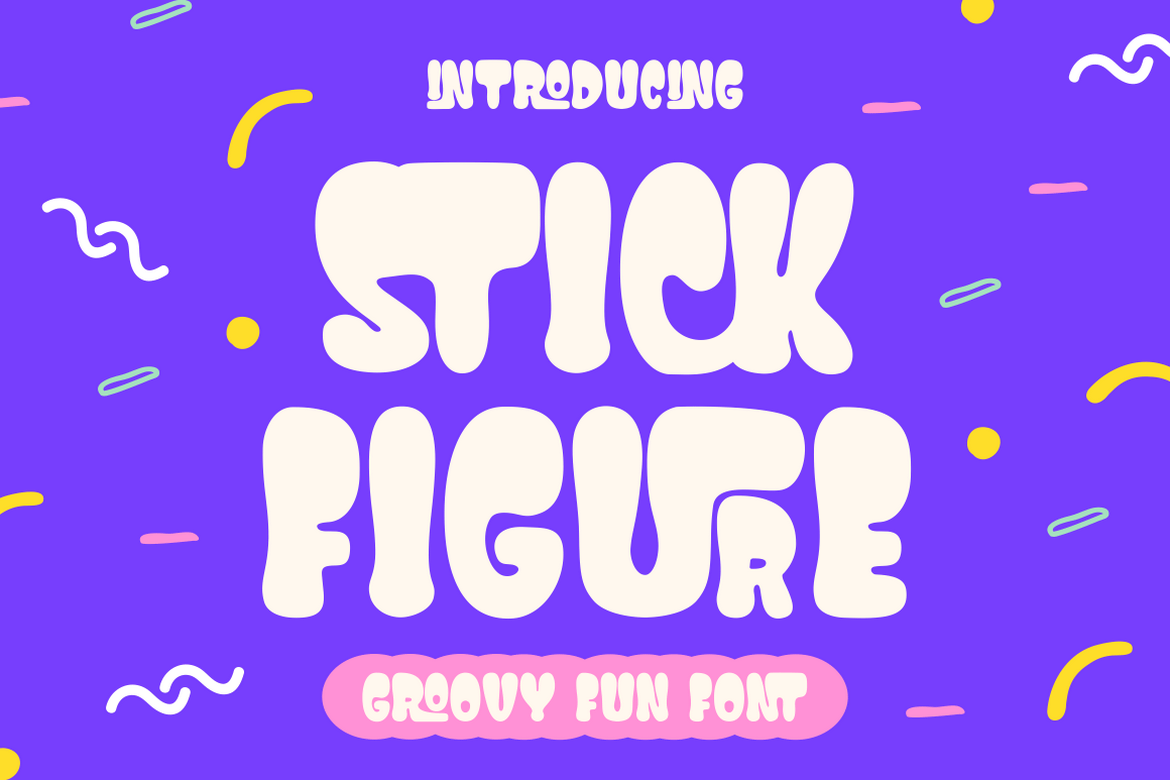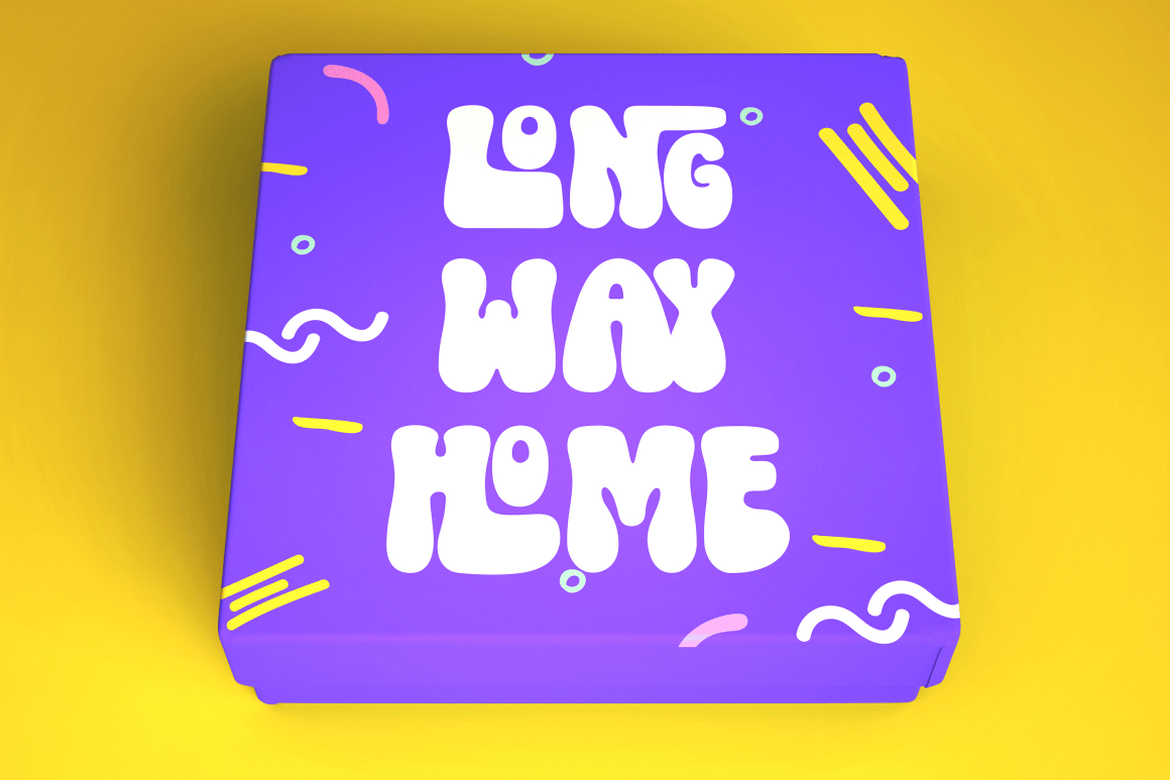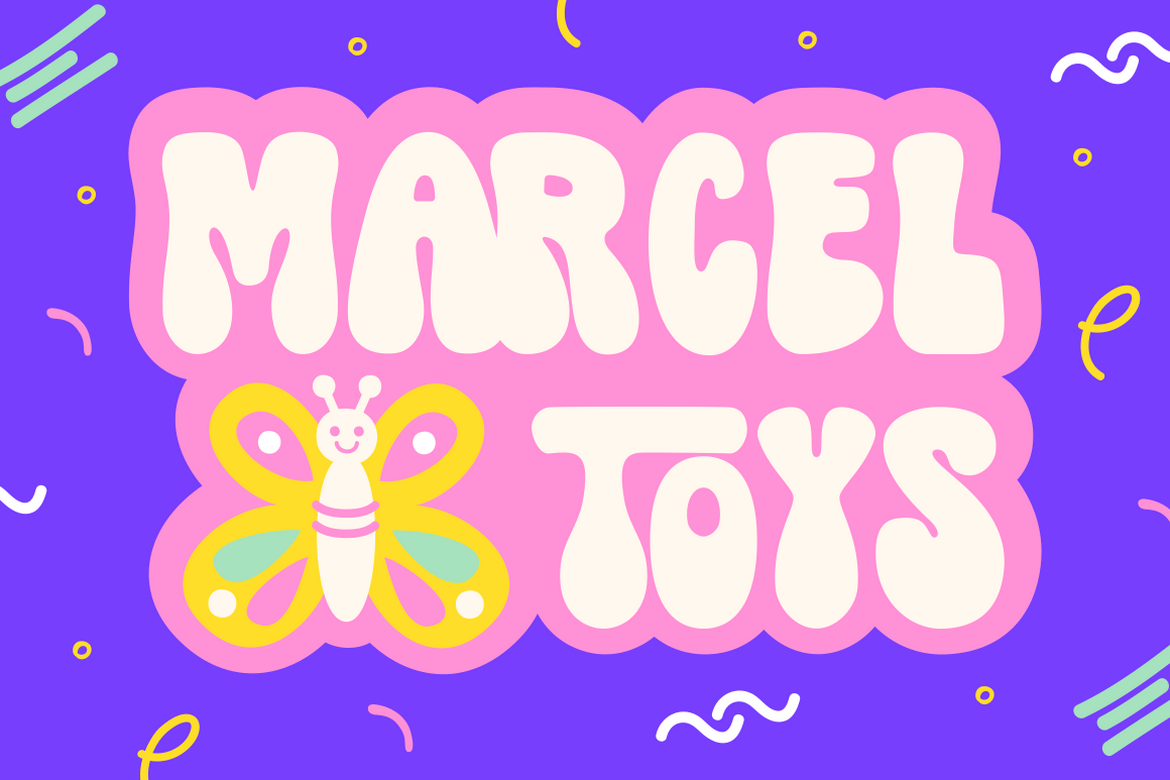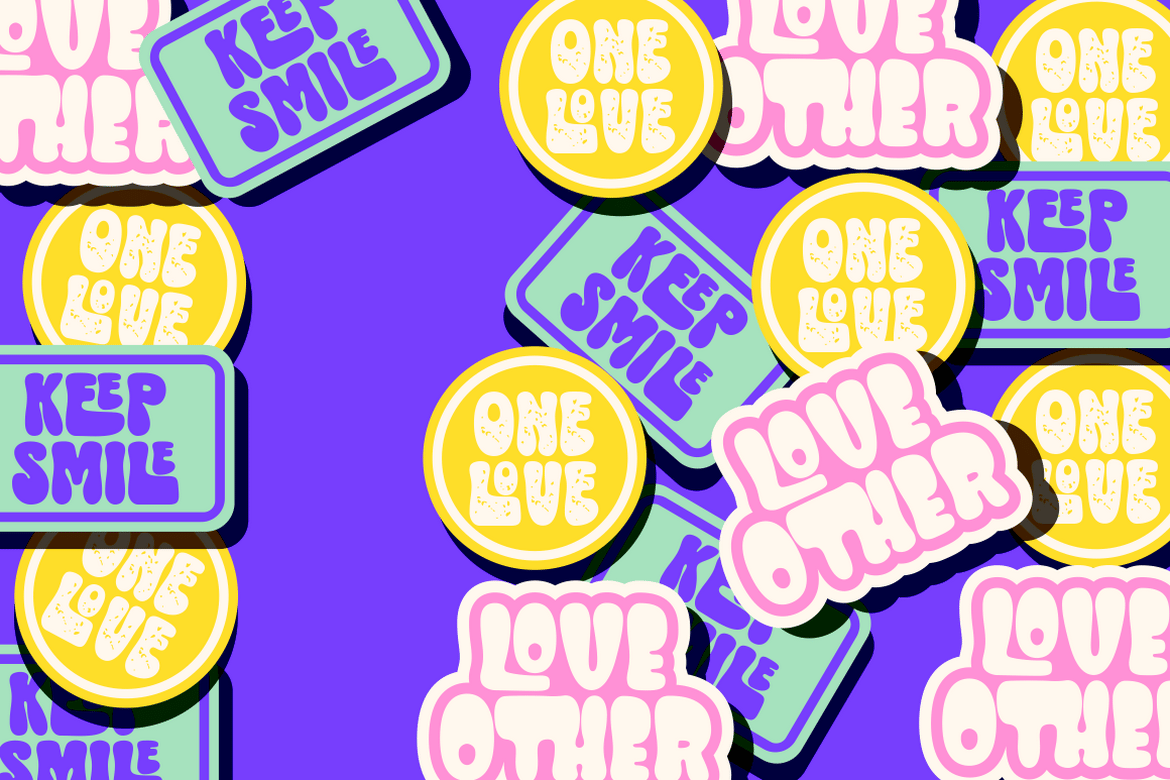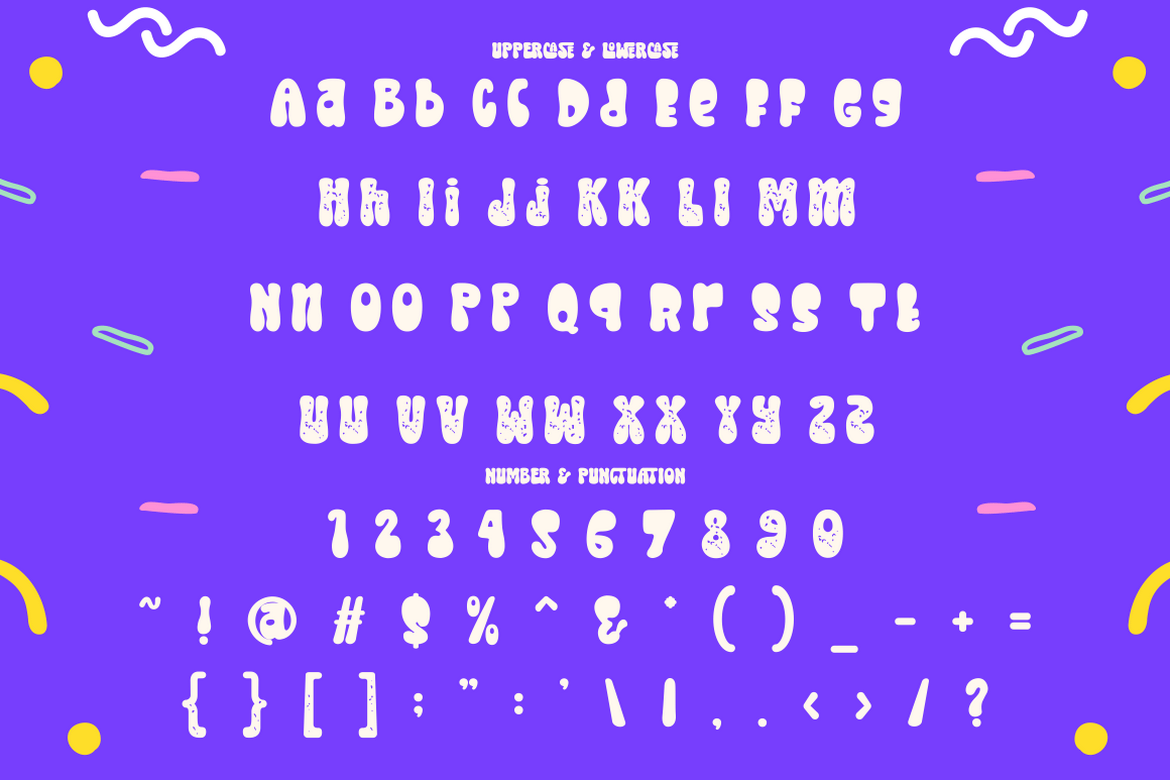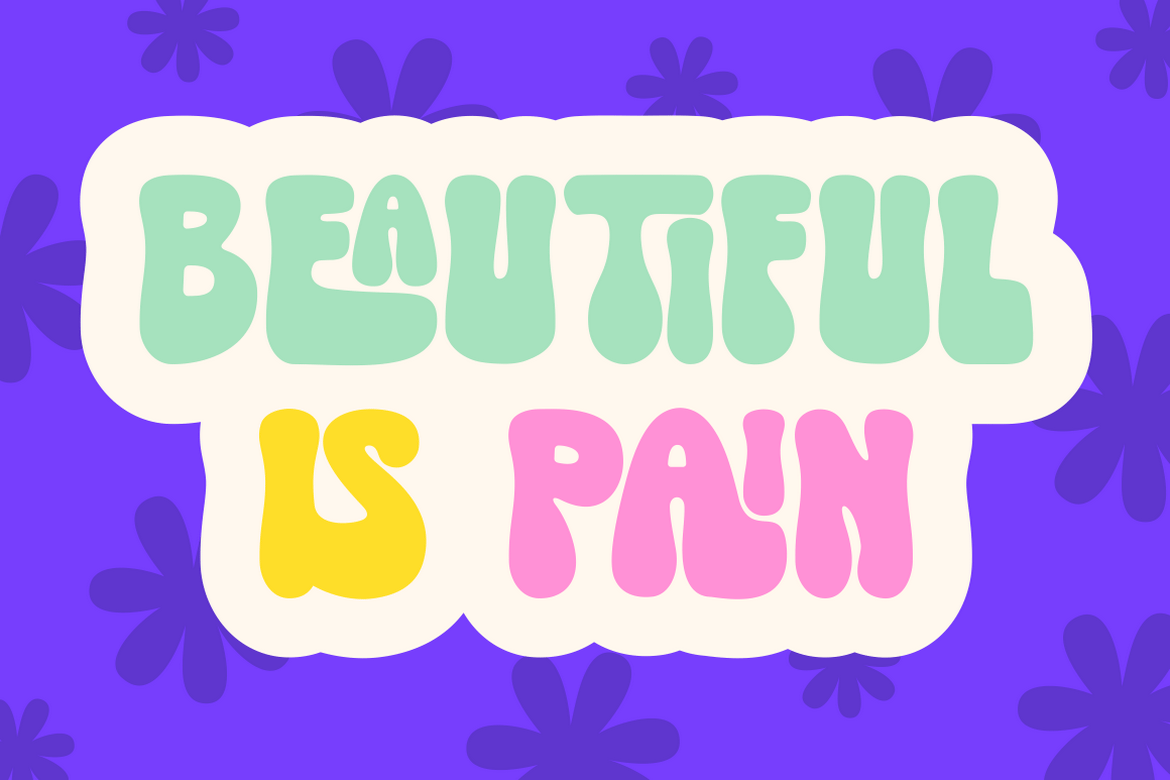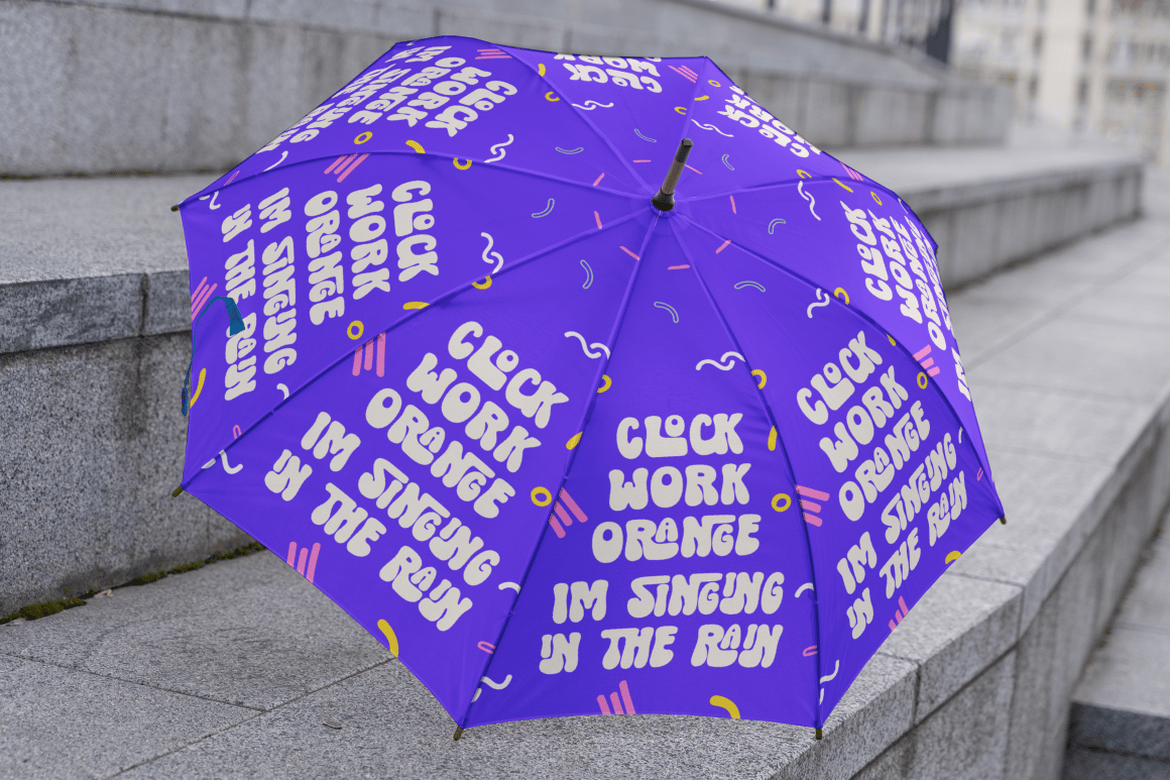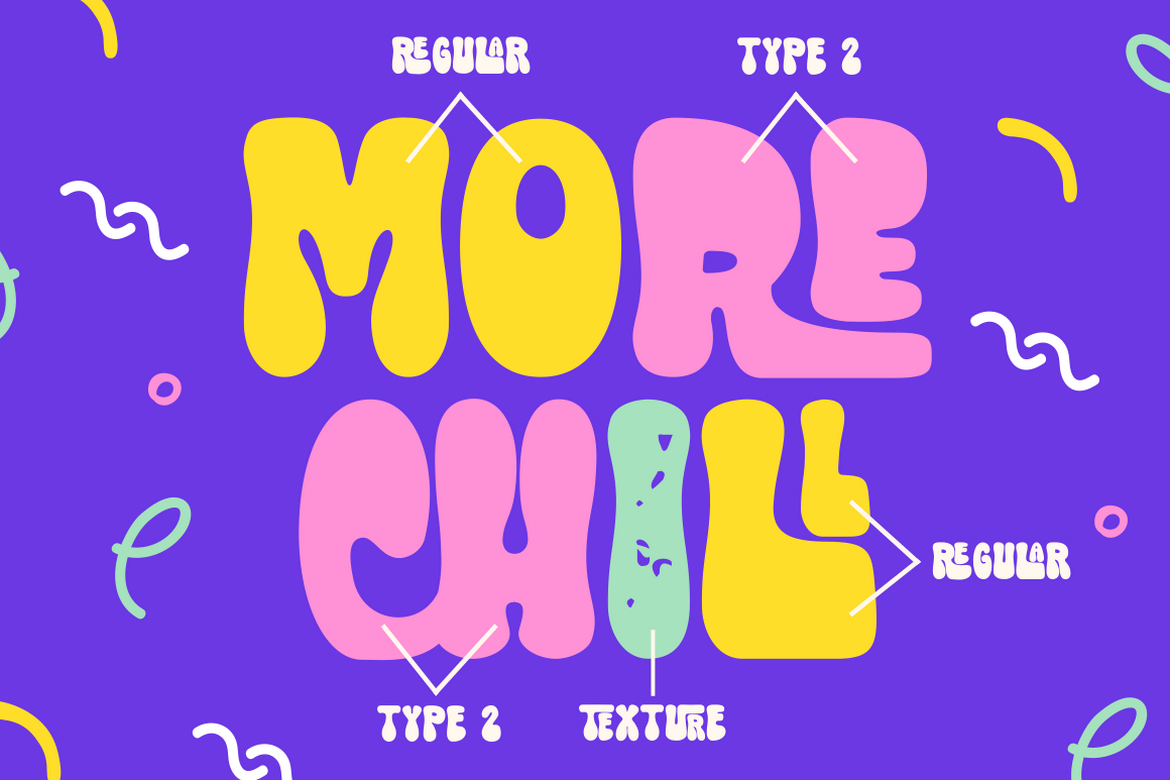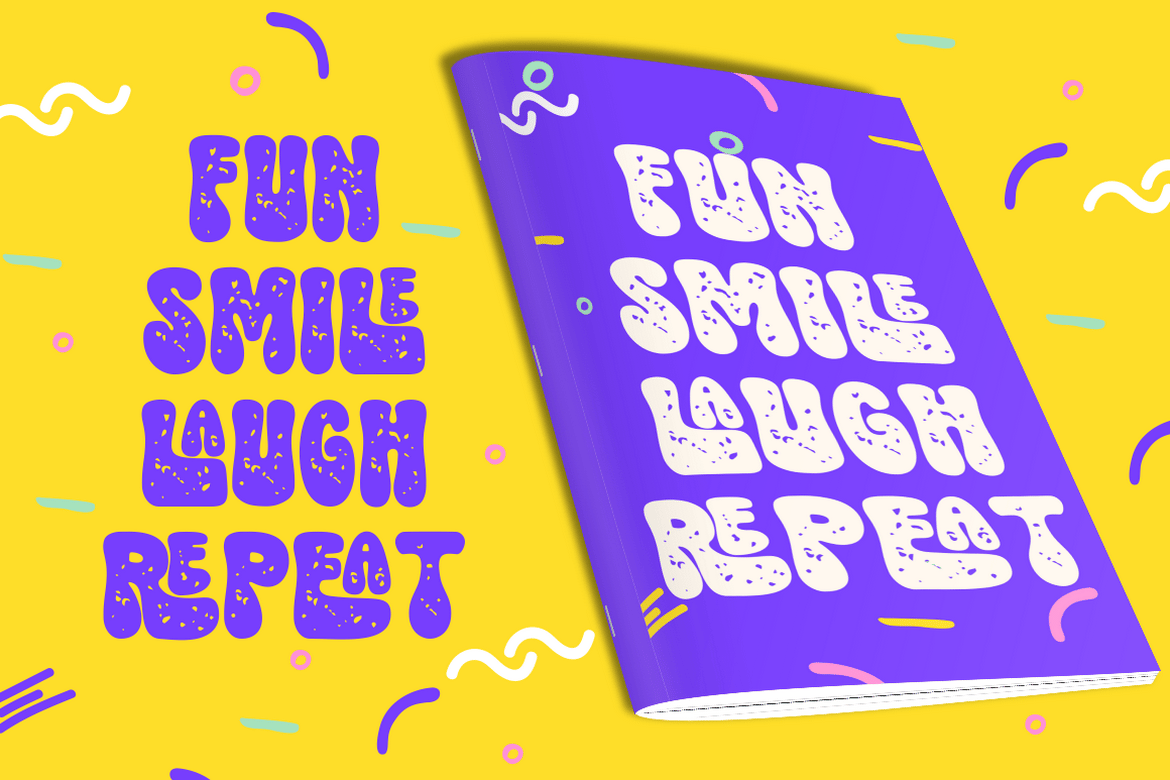
Stick Figure – Groovy Fun Font
The Stick Figure – Groovy Fun Font is a display typeface that embodies cuteness and uniqueness to the fullest. With its super thick and groovy letterforms featuring playful bubble-like endings, this font exudes a sense of fun and whimsy. It distinguishes itself further with a wide array of ligatures, adding extra character and distinction. Perfect for children’s themes or any design that aims to convey joy and excitement, Stick Figure is a fantastic choice for logos, branding, headlines, titles, books, packaging, quotes, posters, children’s toys, stickers, and more.